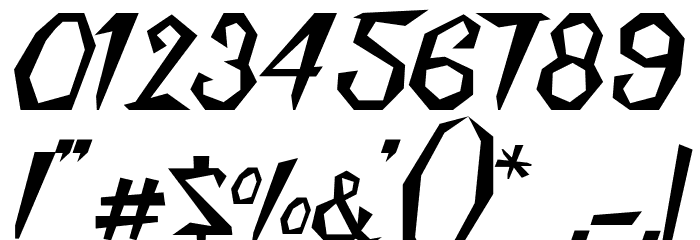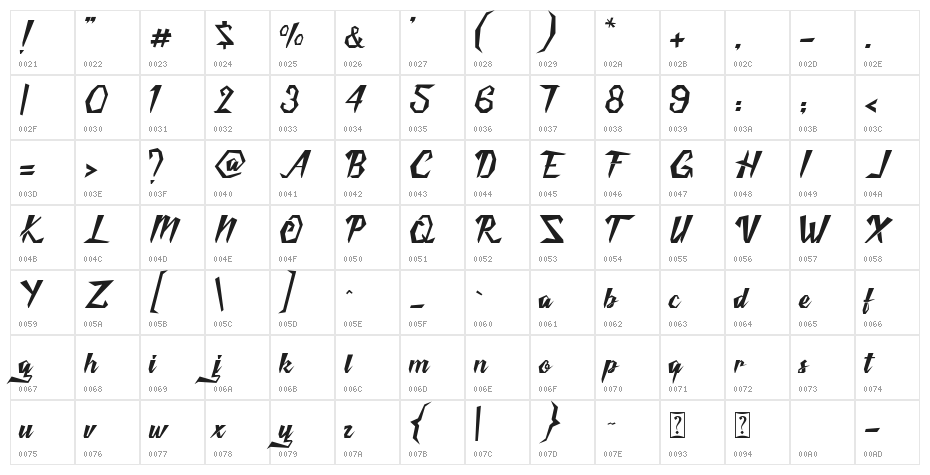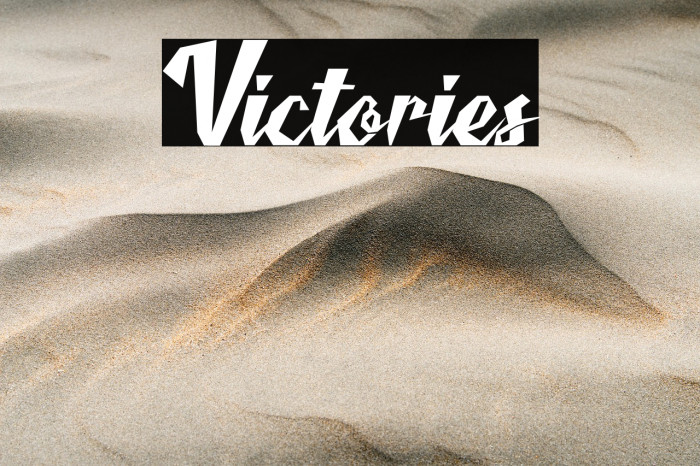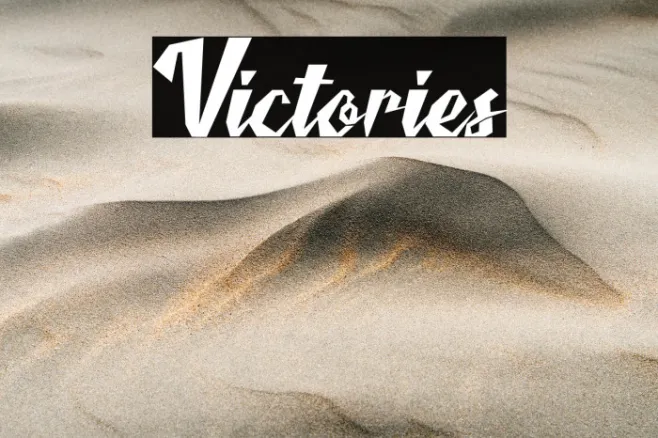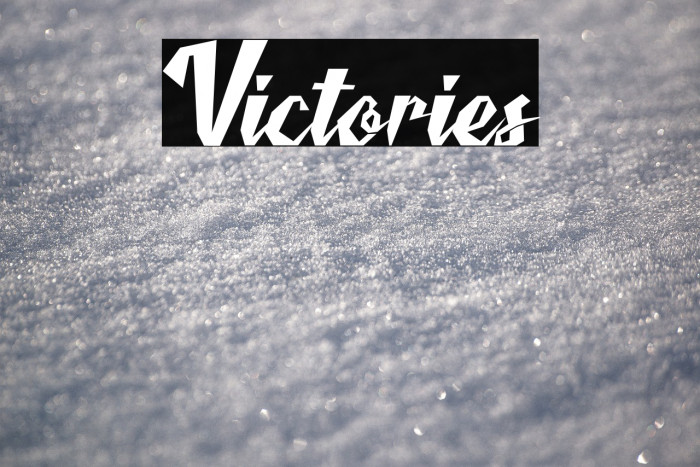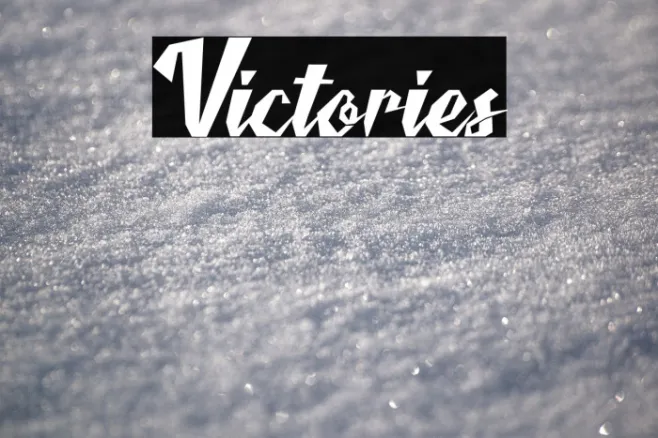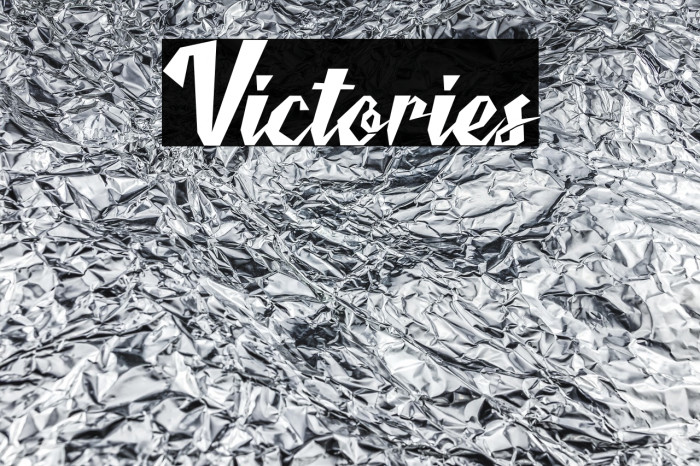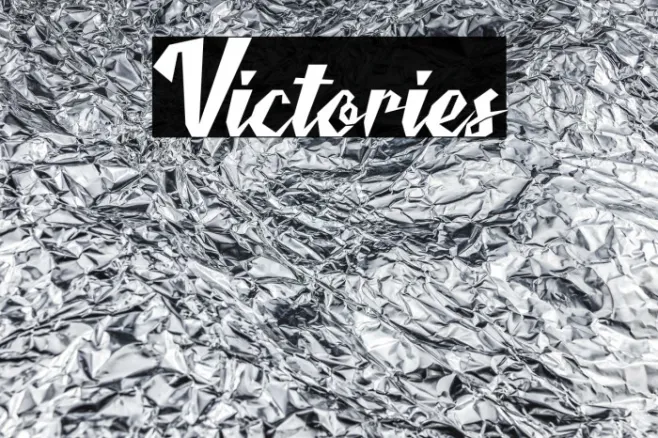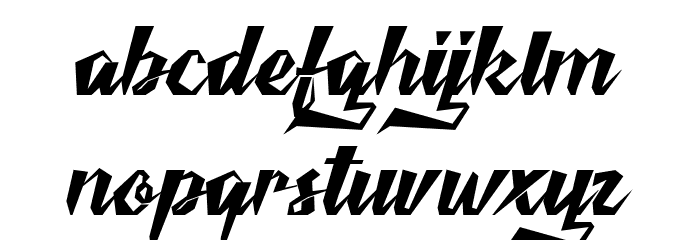
Victories Font
Victories Description
This font features a bold and angular design, characterized by sharp edges and a dynamic, energetic style. The uppercase letters exhibit a strong geometric influence with a slight slant, giving them a sense of movement and urgency. The lowercase letters maintain this angular aesthetic while offering a more compact form. Numbers and special characters are crafted with the same attention to angularity and boldness, ensuring consistency across all glyphs. The font's unique style makes it stand out, ideal for projects that require a modern and edgy look.